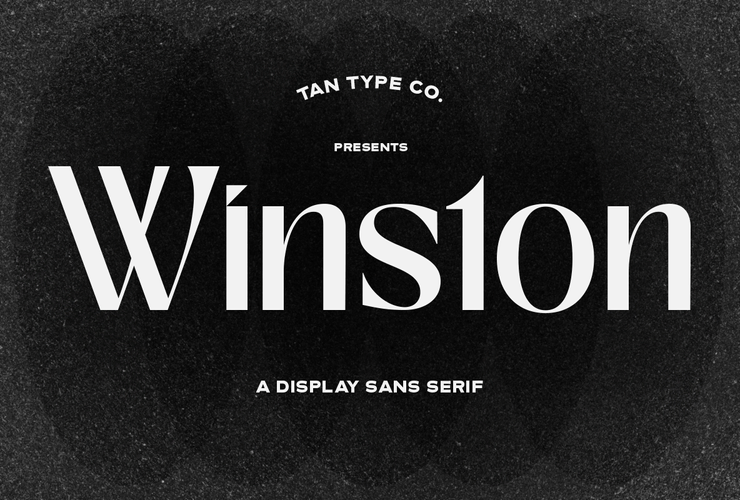
“No nonsense” display type: how TanType describes it
TanType’s description is two sentences long. The font “is a display type with a no nonsense feel. It is straightforward and modern.” Then: “With its angular shapes, it is practical while maintaining the elegance.”
Creative Market files it under sans serif fonts. Luc Devroye’s type design index, which catalogs TanType’s releases by year, lists it among the 2021 fonts as “Winston (flared).” Flared strokes widen slightly toward their ends, which can give a sans serif a carved, elegant edge. So the two sources stress different things: TanType talks about angles, Devroye about flare.
“Multilingual support” is all the listing says about languages. It does not list which ones. If your text includes letters such as ł, ş or ő, test them in the preview before you buy.
Where an angular display sans works
TanType does not list use cases for Winston. Going by its own words, “straightforward,” “modern” and “practical,” it suits jobs where a headline needs authority without decoration:
- Brand names and wordmarks for consultancies, architects or menswear.
- Posters, event titles and exhibition signage.
- Website hero headings, with the Webfont licence.
- Book and report covers that should look modern but serious.
Display fonts are made for big sizes. For paragraphs underneath, use a dedicated text face. Inter is a clear, neutral sans for screens. Merriweather adds a sturdy serif when you want contrast with Winston’s sans shapes.
Who makes TAN Winston?
TanType Co. designs and sells it. The Creative Market shop shows designer N J, owner of TanType.
When was TAN Winston released?
The Creative Market listing was created on 17 May 2021. Luc Devroye’s index also lists it with TanType’s 2021 fonts.